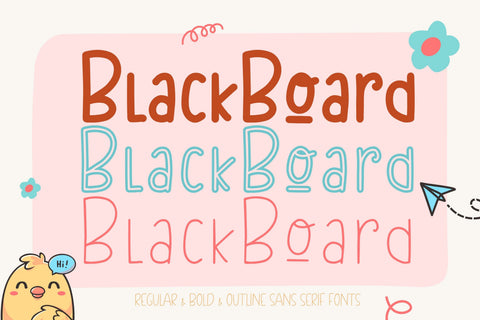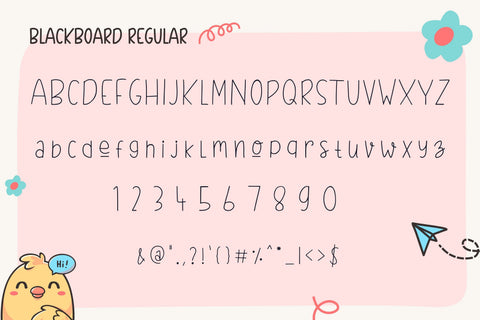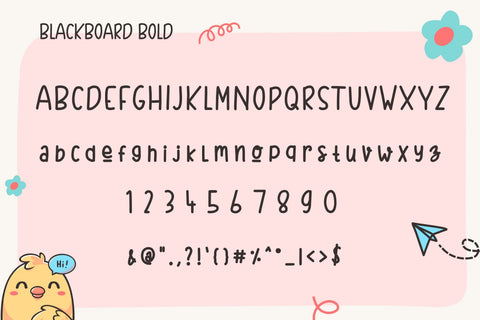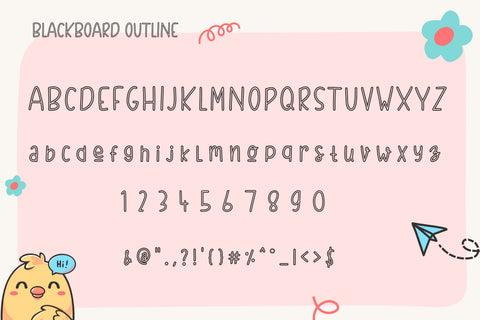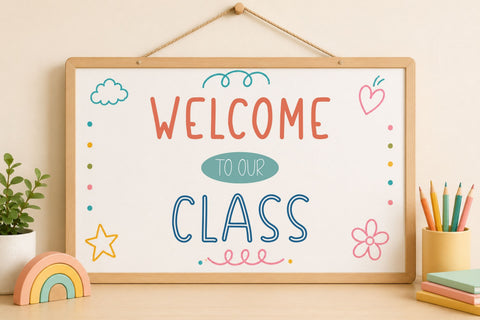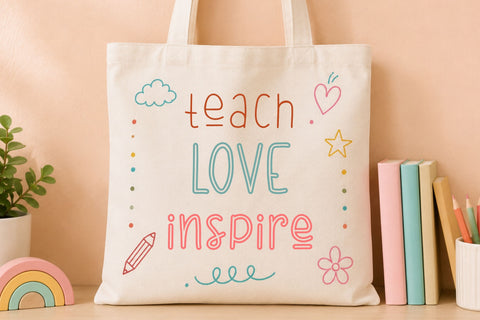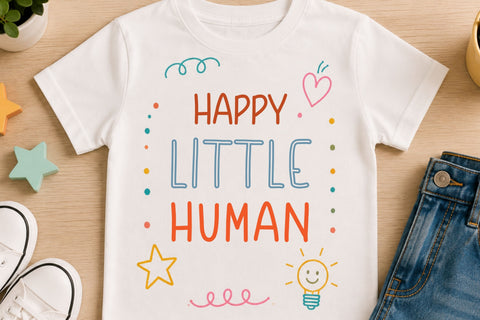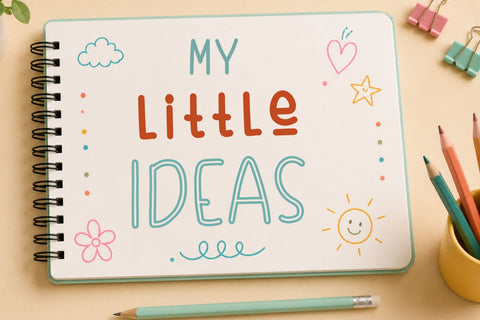
BlackBoard - Family Handwritten Font
BlackBoard Font Family is a fun and playful handwritten font collection featuring Regular, Bold, and Outline styles. Designed with teachers, classrooms, and creative crafters in mind, this font family brings a friendly and cheerful look to every project.
Perfect for classroom decor, bulletin boards, worksheets, teaching resources, Cricut crafts, sublimation, T-shirts, tote bags, mugs, greeting cards, stickers, planners, and educational printables.